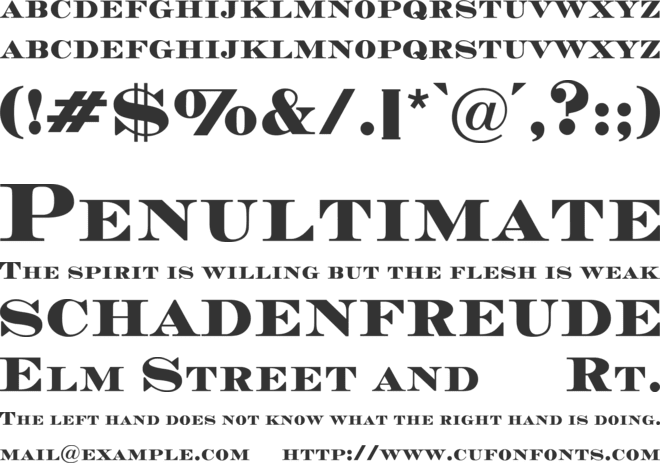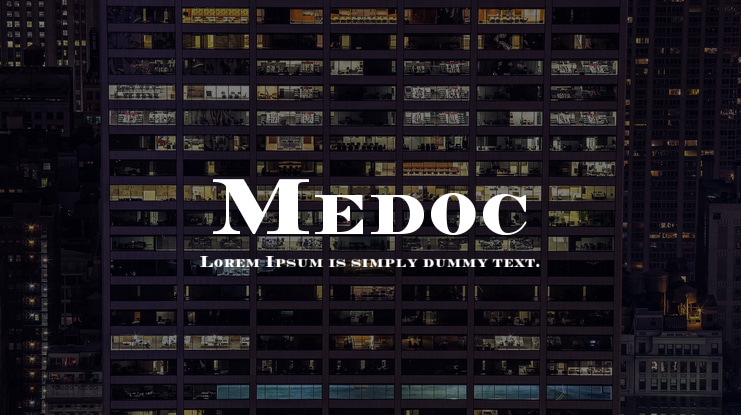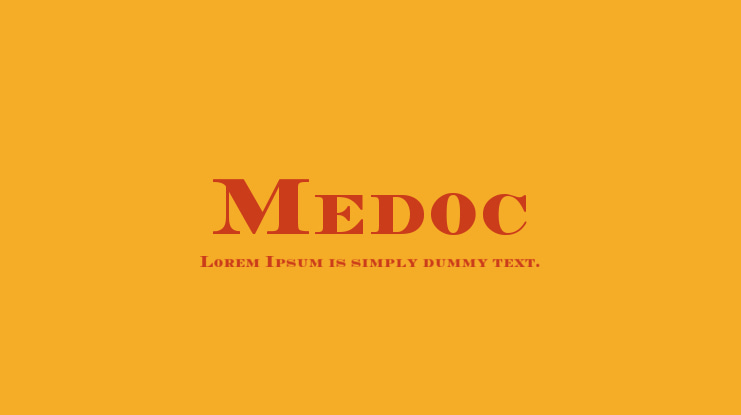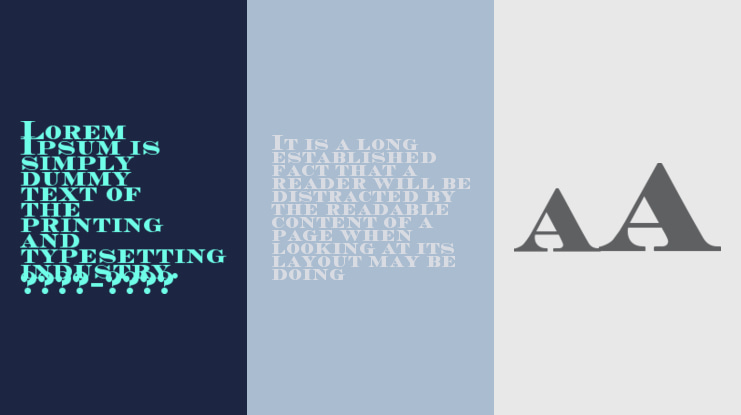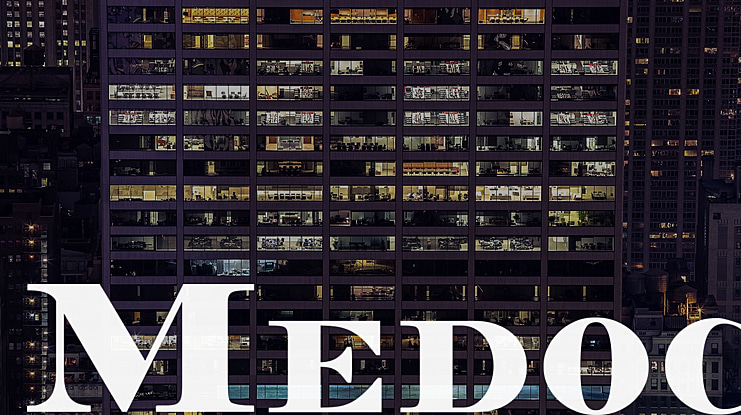
Medoc Font
About this font family Medoc is a clean and fresh font, designed with the intention of producing a good readable modern typeface. Medoc has historical roots, though its redesigned with precision and a high contrast. Medoc will catch the readers eye immediately. Both the regular and italic match in perfect harmony. Useful for titling, head text, magazines, posters and all your graphic work that need a nice and modern look! ******************* NOTE: THIS IS A DEMO-FONT FOR PERSONAL USE ONLY!